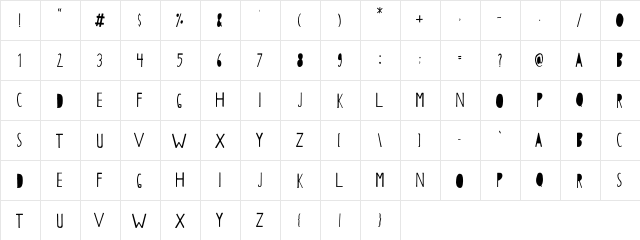
Papercutting Regular
| Designer | Ahsan |
Design Context for Papercutting Typeface
Papercutting is a composed and adaptable typeface that performs quietly and consistently across a wide range of design contexts.